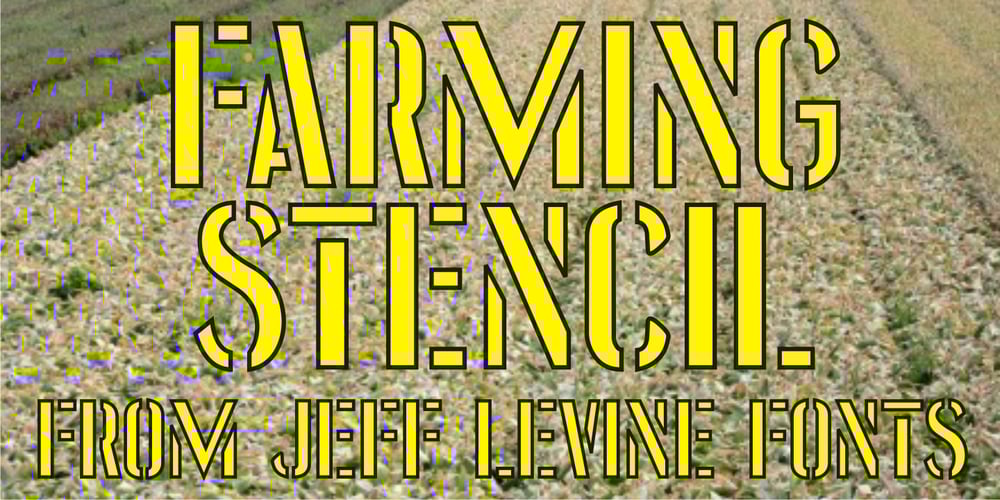
Farming Stencil JNL Font Family was designed by Jeff Levine and published by Jeff Levine. Farming Stencil JNL contains 1 styles and family package options. Examples of Australian brass stencils used for baling form the basis of Farming Stencil JNL. The hand-cut look of this typeface gives a more casual approach to a standard stencil design.